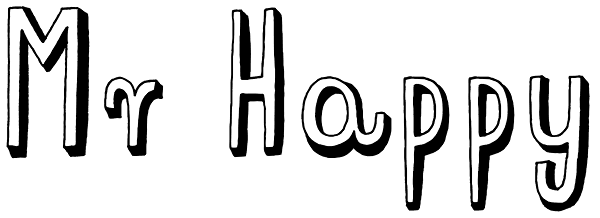
Mr Happy
Hand drawn narrow typeface designed for one of our books. You can layer different styles over the background style to achieve lots of colorful effects. Use just one style to get a single color letter or set the shadow and fill over the background...